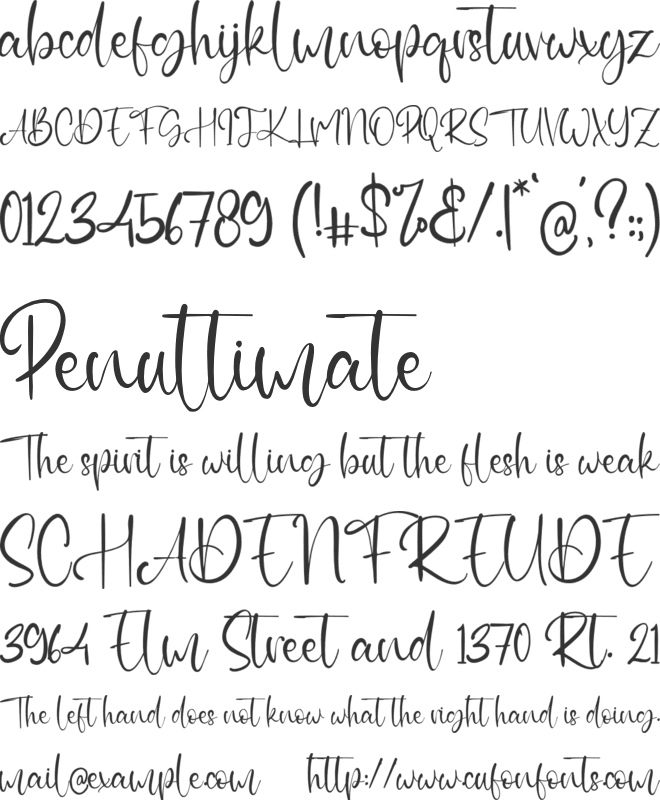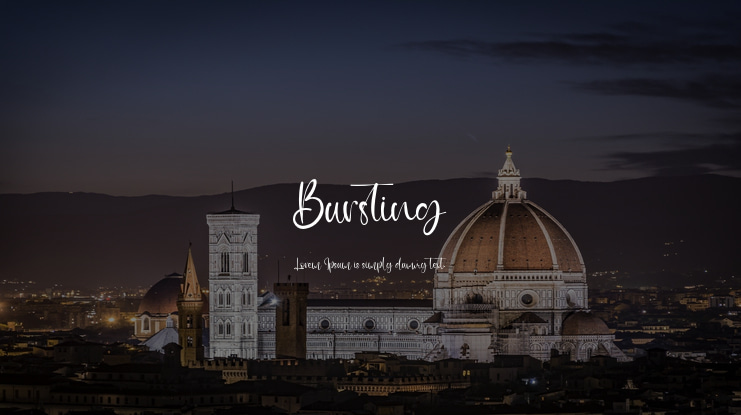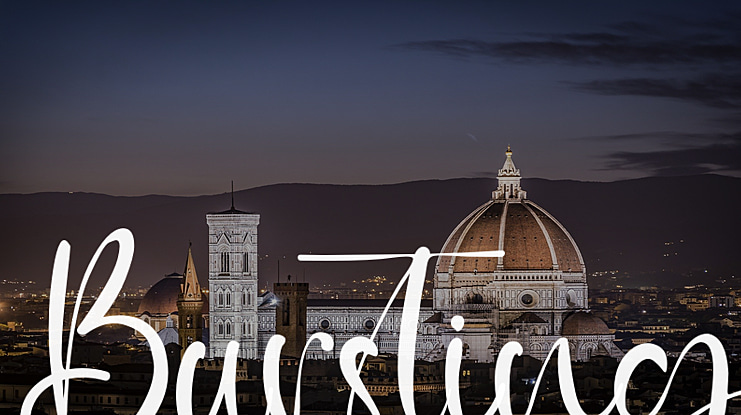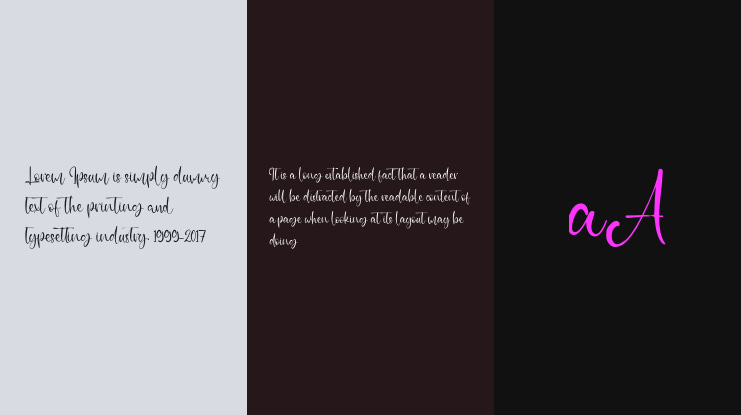
Bursting Font Family
Kong Font
Introducing our New Font, very suitable as to make adorable invitation for wedding, birthday, special day. A collection of letters and numbers suitable your projects also great for Logotype, Branding Design, Logo Design, Digital Lettering Arts, T-Shirt/Apparel, Poster, Magazine, Signs, Advertising Design, and also perfect for your other projects branding.Click our website :https://fontkong.com/product/bursting/